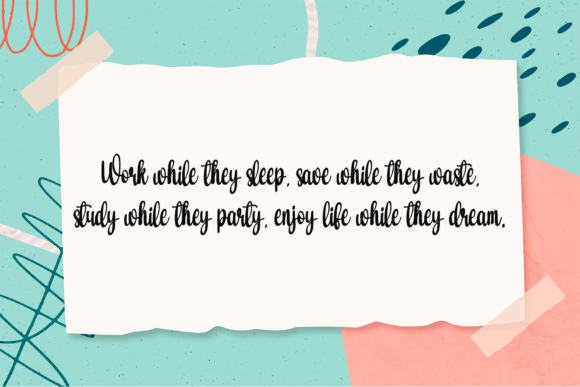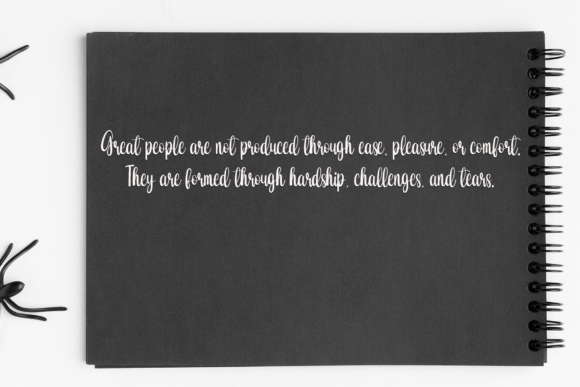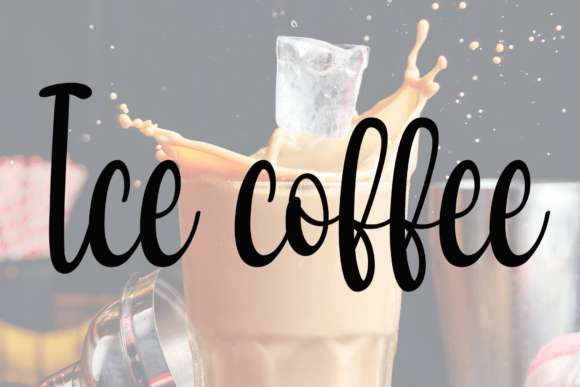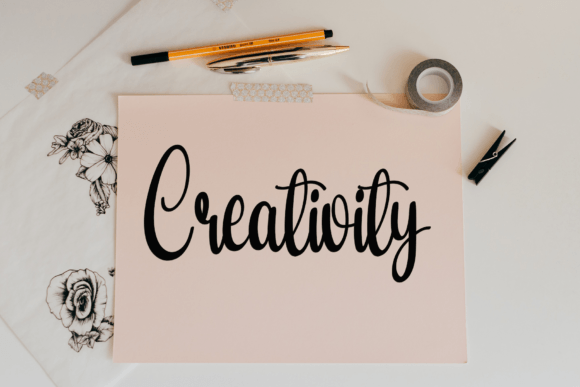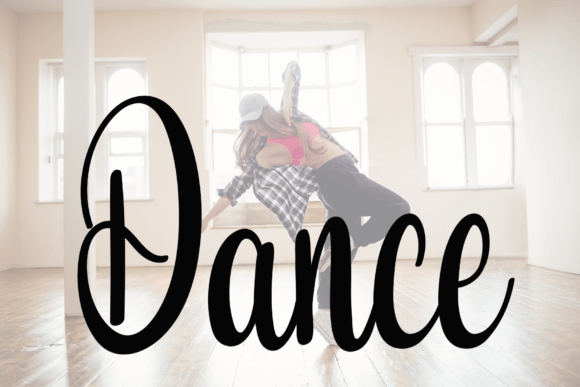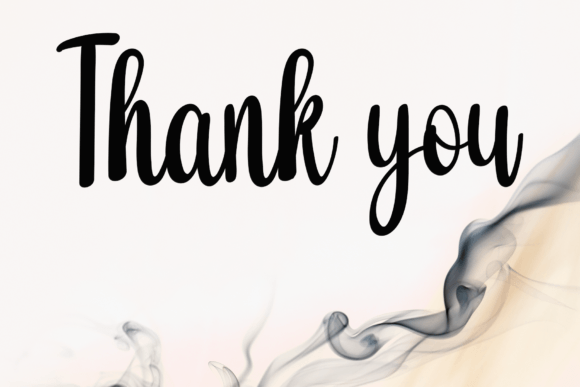
Introducing Handwritten: The Cool, Simple, and Playful Font to Elevate Your Designs
Are you tired of using the same old fonts in your designs? Look no further! Handwritten is a cool, simple, and playful handwritten font that’s here to take your creative projects to the next level. With its incredible versatility, this font can fit a wide pool of designs, making it a must-have for designers and crafters alike.
The Power of Handwritten Fonts
Handwritten fonts have a unique charm to them. They add a personal touch to any design, making it more approachable and relatable. Whether you’re working on a branding project, a craft, or a digital design, a handwritten font can make all the difference. It can add a dash of personality, whimsy, and fun to your work, setting it apart from the rest.
What Makes Handwritten So Special?
So, what makes Handwritten so special? Here are just a few reasons why this font stands out:
- Cool and Simple: Handwritten has a cool, laid-back vibe that’s perfect for designs that need to be relaxed and casual. At the same time, it’s simple enough to be paired with a wide range of other fonts and design elements.
- Playful: This font has a playful edge that’s perfect for designs that need to be fun and engaging. Whether you’re working on a children’s project or a design that needs to be lighthearted and humorous, Handwritten is the perfect choice.
- Versatile: Handwritten is incredibly versatile, making it suitable for a wide range of designs. From branding and packaging to digital designs and crafts, this font can be used in countless ways.
How to Use Handwritten in Your Designs
Adding Handwritten to your designs is easy! Here are a few ways you can use this amazing font:
- Pair it with Other Fonts: Handwritten pairs perfectly with a wide range of other fonts. Try pairing it with a bold, sans-serif font for a striking contrast.
- Use it for Headings: Handwritten is perfect for headings and titles. Use it to add a pop of personality to your design.
- Use it for Body Text: This font is also suitable for body text. Use it to add a personal touch to your paragraphs and make your text more approachable.
Handwritten is a game-changer for designers and crafters alike. Here are just a few benefits of using this amazing font:
- Adds Personality: Handwritten adds a personal touch to your designs, making them more relatable and engaging.
- Increases Versatility: This font can be used in a wide range of designs, making it a valuable addition to your font library.
- Easy to Use: Handwritten is easy to use and pairs perfectly with a wide range of other fonts and design elements.
In conclusion, Handwritten is a cool, simple, and playful handwritten font that’s perfect for designers and crafters looking to elevate their designs. With its incredible versatility and charming personality, this font is sure to become a favorite in your font library. So why wait? Add Handwritten to your designs today and watch them come alive!
Whether you’re working on a branding project, a craft, or a digital design, Handwritten is the perfect choice. Its unique charm and playful edge make it a must-have for anyone looking to add a personal touch to their work. So go ahead, get creative, and see what amazing designs you can create with Handwritten!